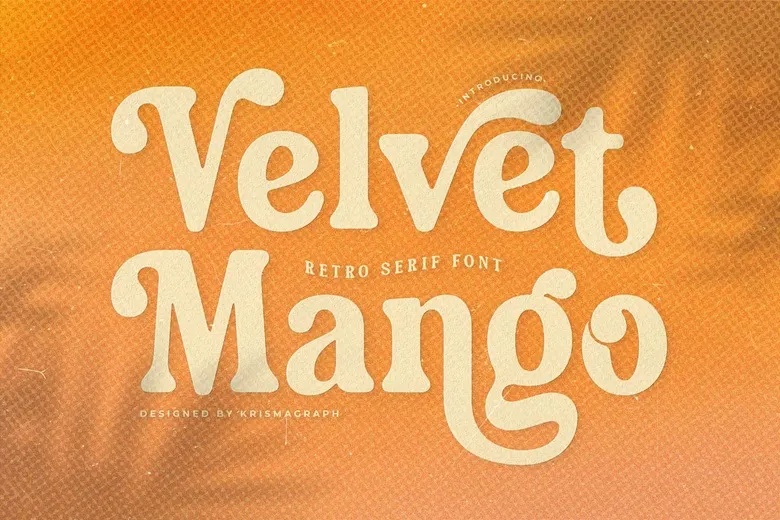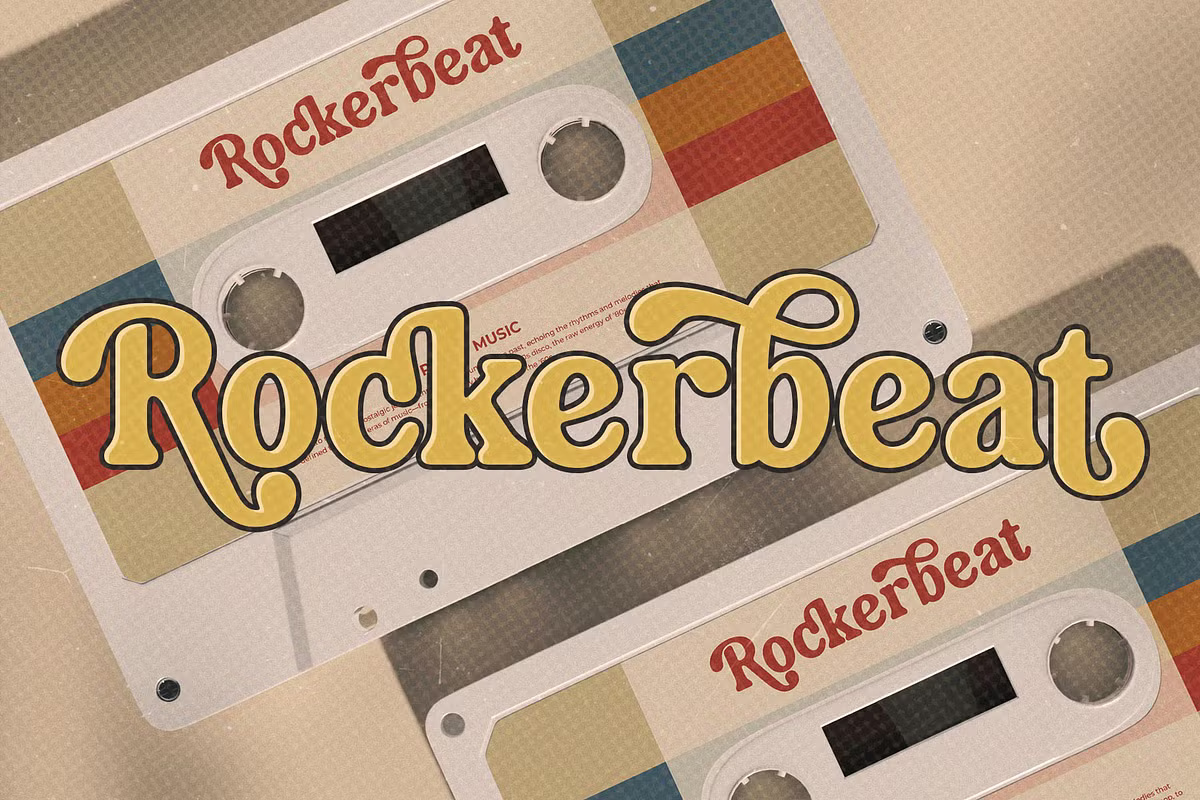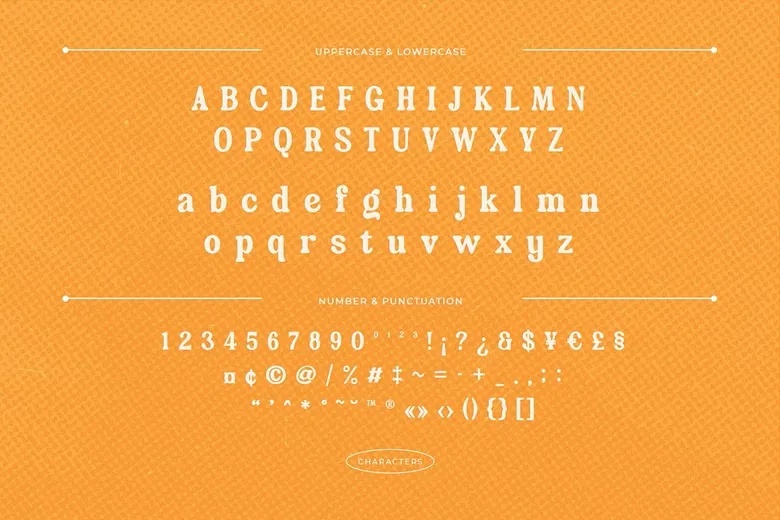
Velvet Mango looks like it melted slightly in the sun. Serifs are soft and rounded, the V and M have swinging tails, and letters like g and o feel plump. Rockerbeat printed on a cassette in the specimen is the right setting: 70s, warm and a bit groovy.
It is designed by Ratna Krismawati of Krismagraph, with upper and lowercase, numbers, punctuation and currency signs. The free file on this page is a single OTF. Because the curves are so soft, it reads best in short words at large sizes.
Best uses for Velvet Mango
- Retro packaging and labels
- Album covers and cassette art
- Café and dessert shop signs
- Posters for vintage markets
- Social media headers
Velvet Mango is round and warm, so pair it with something cleaner. Jost keeps body text tidy. Work Sans suits small labels. For a matching retro feel in body copy, try Fraunces.
Velvet Mango Serif Font